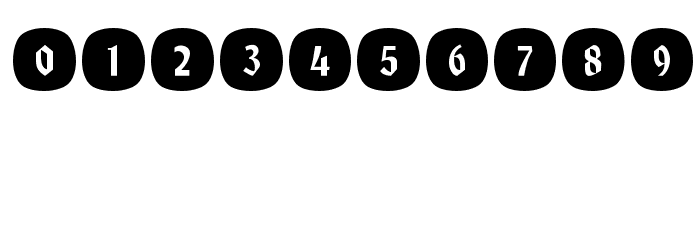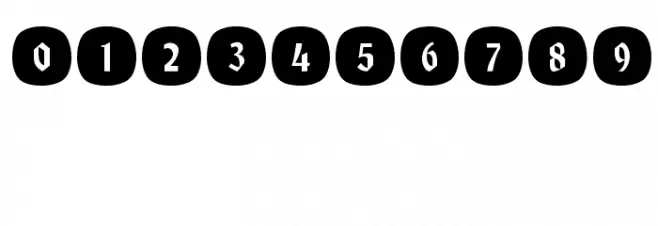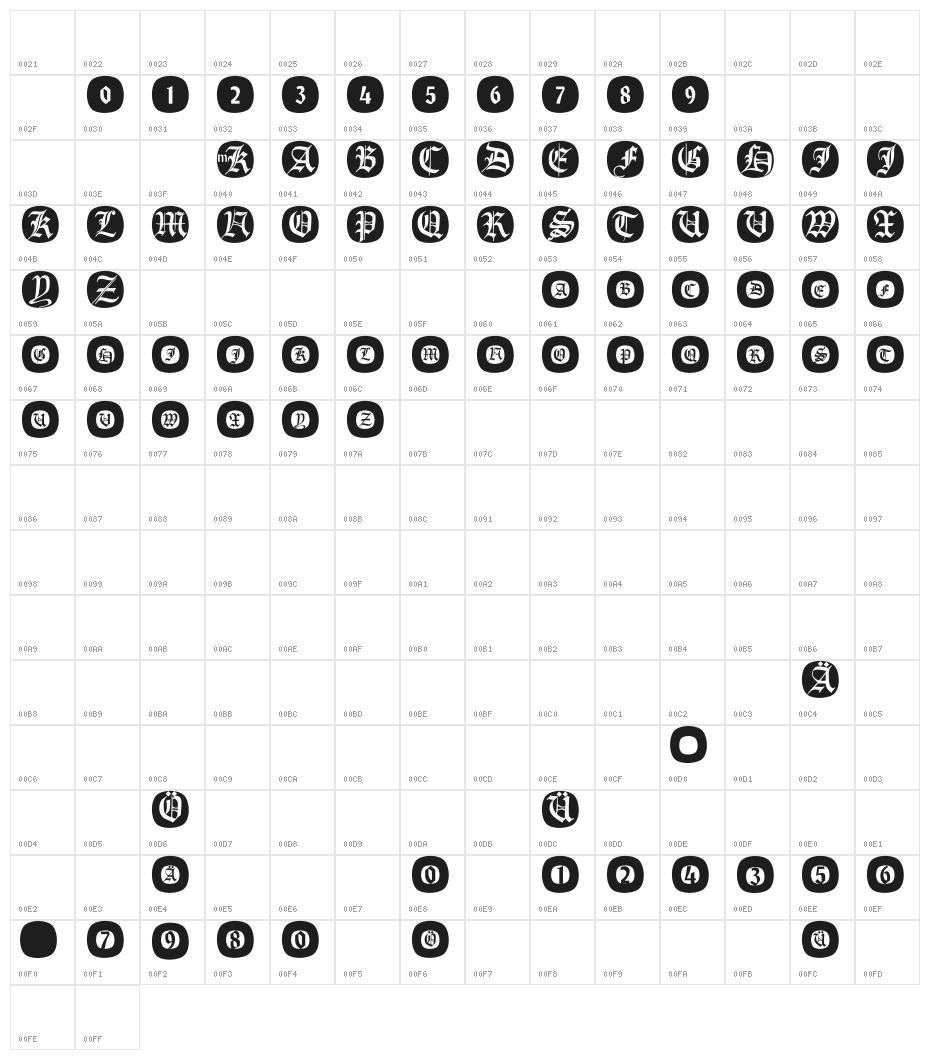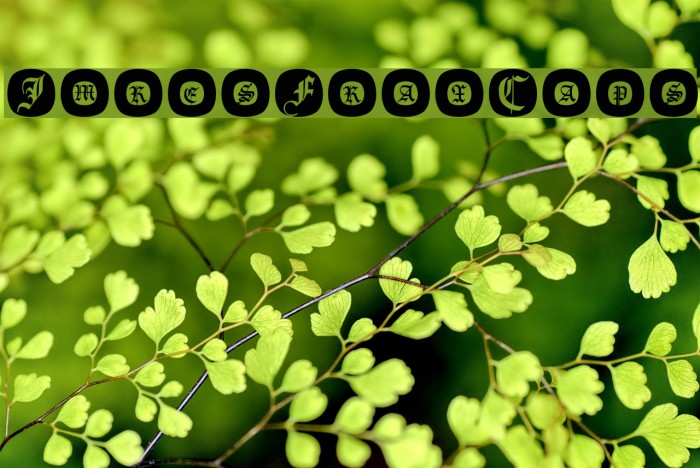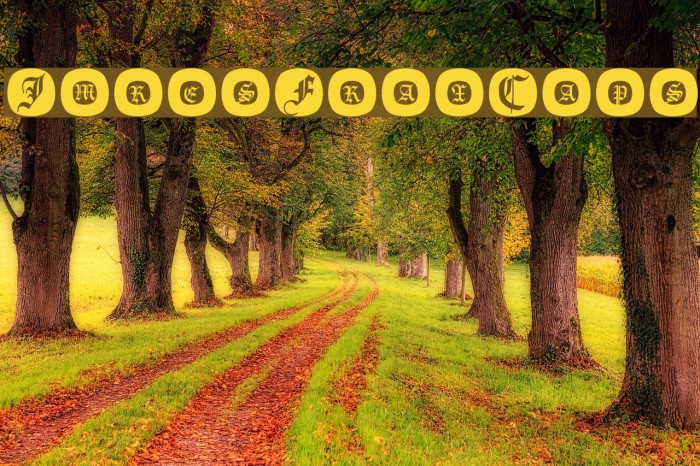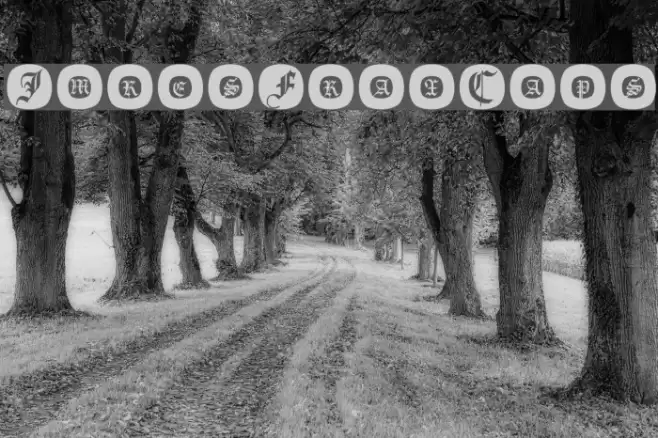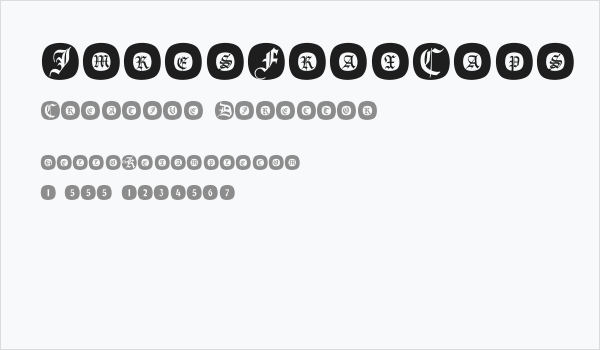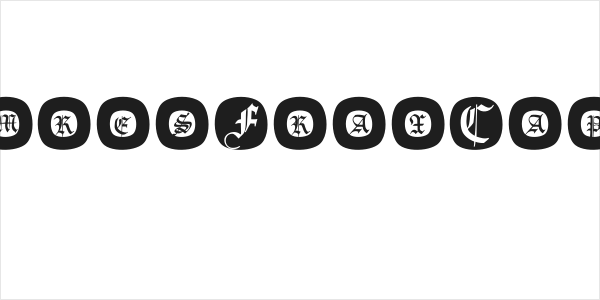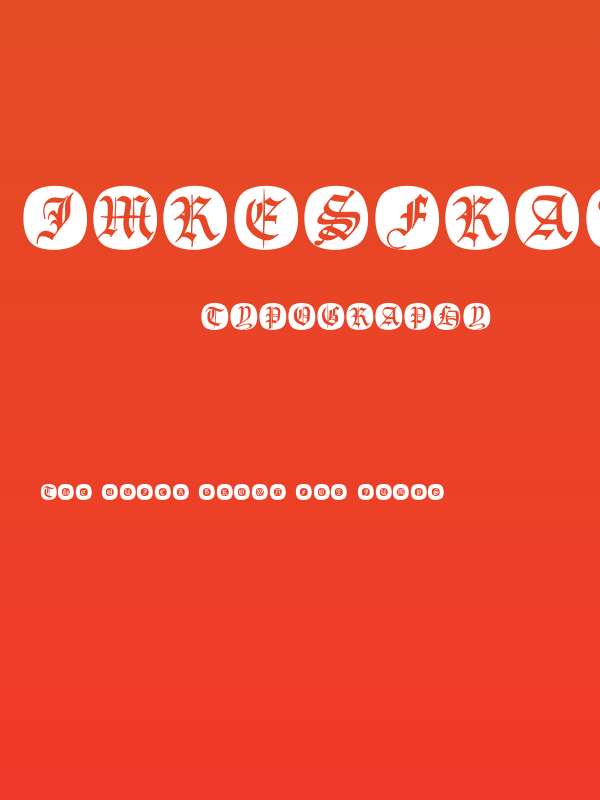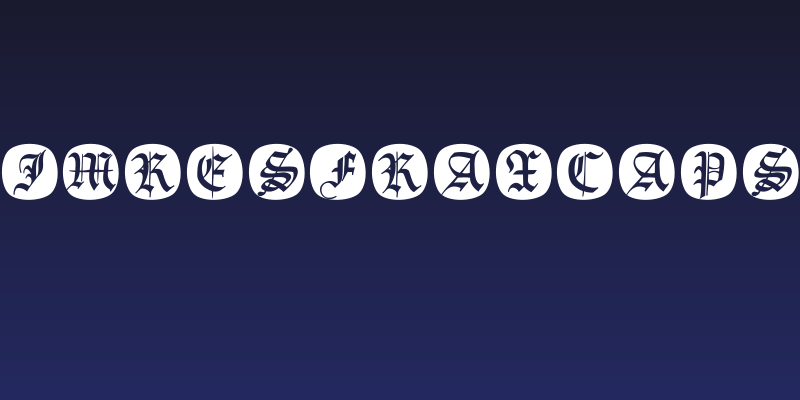
ImresFraxCaps Font
ImresFraxCaps Description
This font features a bold and dramatic blackletter style, reminiscent of traditional Gothic script. Each character is encased in a rounded black square, creating a striking contrast between the intricate white lettering and the dark background. The uppercase letters exhibit ornate flourishes and sharp angles, while the lowercase letters maintain a consistent style with slightly less embellishment. The numerals are similarly styled, ensuring a cohesive look across all characters. This font's unique design makes it ideal for projects requiring a historical or medieval aesthetic.
| Proposed Projects | Ideal for historical themed designs, medieval event posters, book covers, or any project needing a dramatic, Gothic touch. |